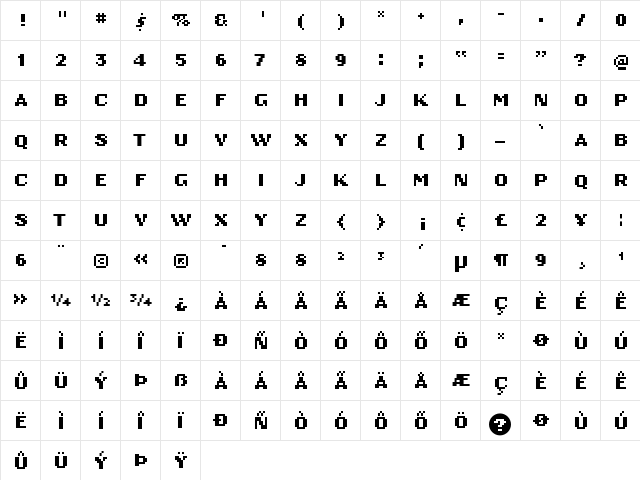
OaklandSix Regular
Design Context for OaklandSix Typeface
OaklandSix is a composed and adaptable typeface that performs quietly and consistently across a wide range of design contexts.